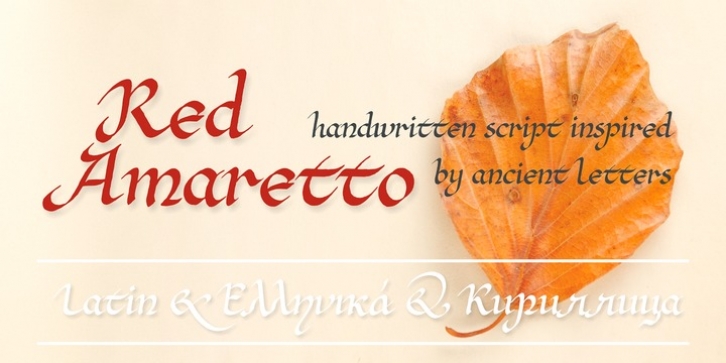
Red Amaretto is a script typeface influenced by different ancient writing styles. All characters are handwritten by use ink and flat nib pen on coarse paper, scanned, digitized and optimized for best quality without lost its handwritten visual appearance. Coarse glyphs edges are easy visible at medium and higher sizes. Character set support all official and semi-official languages in European Union writen in latin, cyrillic and greek scripts. Supported codepages: 1250 Central (Eastern) European, 1251 Cyrillic, 1252 Western (ANSI), 1253 Greek, 1254 Turkish, 1257 Baltic. Include also spacing characters (M/1, M/2, M/3, M/4, M/6, thin, hair, zero width space etc.) for professional text formatting. OpenType TrueType TTF (.ttf) font file include installed OpenType features: Access All Alternates, Localized Forms, Fractions, Alternative Fractions, Ordinals, Superscript, Tabular Figures, Proportional Figures, Case-Sensitive Forms, Stylistic Alternates, Contextual Alternates, Stylistic Set 1, Stylistic Set 2, Contextual Ligatures. Include also kerning as single ‘kern’ table for maximum possible backwards compatibility with older software.